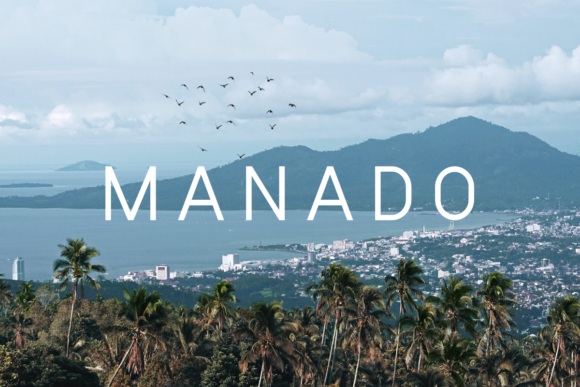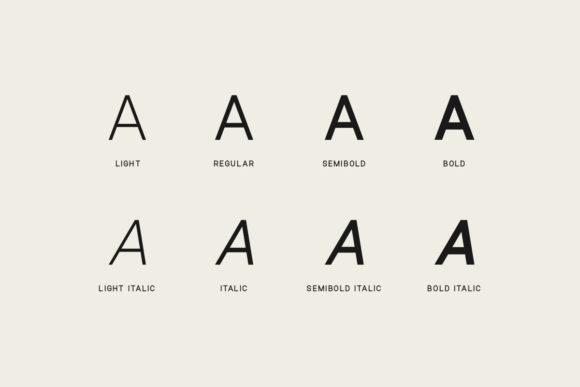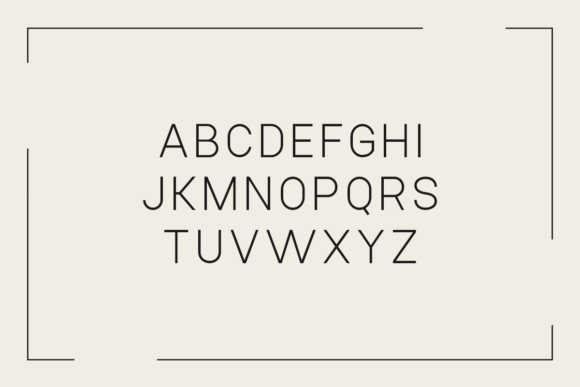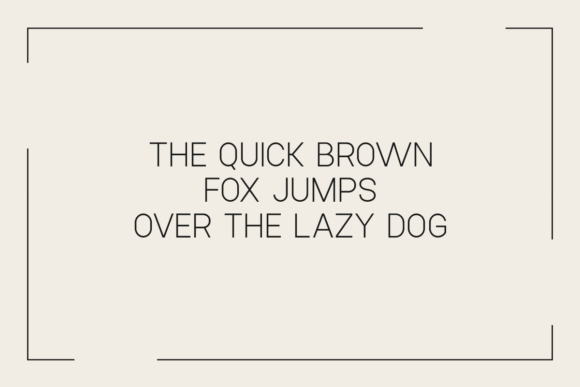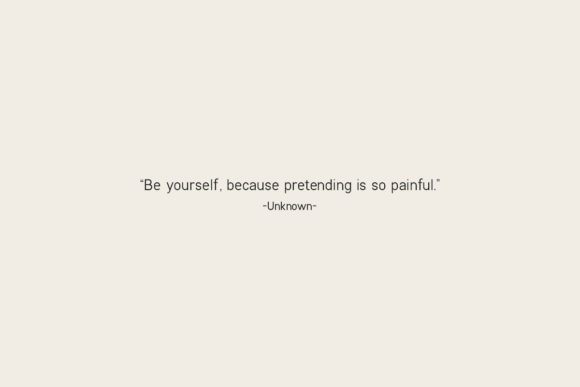
Introduction to Manado Font
You know that feeling when you’re working on a creative project and you can’t quite find the right design resource to tie everything together? The perfect font can make all the difference, elevating your work from good to great. I’ve been there, and I’m sure you have too.
About Manado Font
Enter the Manado Font, a sleek and modern sans serif font that’s perfect for a wide range of high-quality creative projects. With its clean lines and minimalist aesthetic, it’s an incredibly versatile design resource that can be used in everything from logos and branding materials to websites and social media graphics. And the best part? It’s available for free download, making it an accessible and valuable addition to any designer’s toolkit.
Why Manado Font Stands Out
One of the things that sets the Manado Font apart is its transparent background, making it easy to pair with any image or design element. Whether you’re working on a project that requires a bold and eye-catching font or something more subtle and understated, the Manado Font is an excellent choice. With its high-quality design and versatility, it’s a must-have for any designer looking to take their creative ideas to the next level.
Key Features of Manado Font
- High-quality, vector-based font design suitable for various creative projects.
- Comes with a transparent background, allowing for easy customization and seamless integration into designs.
- Unique, modern design aesthetic, perfect for adding a touch of sophistication to various creative projects.
Honest Review: Manado Font
I recently had the chance to work with the Manado Font, and I must say it’s a solid addition to any designer’s toolkit. The high quality of the font is immediately apparent, with clean lines and a sophisticated feel that’s perfect for a creative project.
One of the things I appreciate most about the Manado Font is its versatility. It’s a great choice for a variety of design applications, from logos to print materials to digital interfaces. The transparent background is a nice touch, making it easy to layer with other design elements.
Here are some of the things that work well with the Manado Font:
- ✨ Great for creating a cohesive brand identity
- ✨ Versatile and adaptable to different design contexts
- ✨ High quality and visually appealing
- ⚠️ Limited character set, which may not be suitable for longer blocks of text
- ⚠️ May require some adjustments for use in digital interfaces
The Manado Font is a versatile design resource ideal for high-quality creative projects that require a unique touch. With its transparent background, this font can be easily integrated into various design tools.
For presentations and documents, use the Manado Font in PowerPoint or Word to add a touch of sophistication. The font’s high-quality design will elevate your content and make it stand out.
The Manado Font is suitable for a wide range of applications, including branding, marketing materials, and editorial content. Its versatility makes it an excellent addition to any design project.